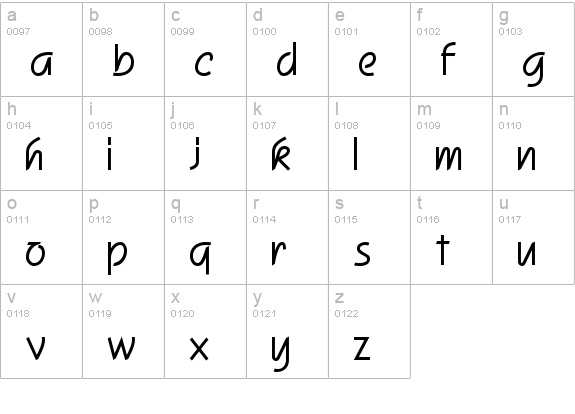
Aduren Font Details
Aduren font is a modern and elegant typeface that effortlessly combines sophistication with a touch of playfulness. Its sleek lines and subtle curves make it perfect for a wide range of design projects, from branding to invitations. The versatile nature of Aduren font allows it to be used in both headings and body text, ensuring a cohesive and polished look throughout your designs. What makes Aduren font even more appealing is that it is available for free! You can easily download this exquisite font at FontsMarket.com and start using it in your projects right away. With its timeless appeal and contemporary flair, Aduren font is sure to elevate your designs and leave a lasting impression on your audience.